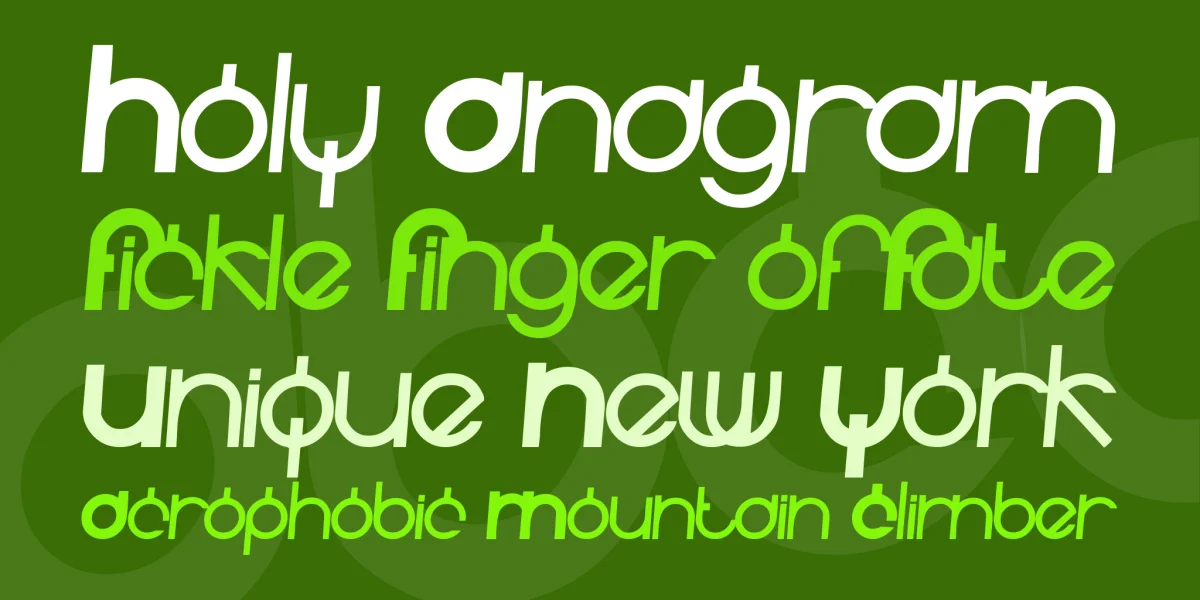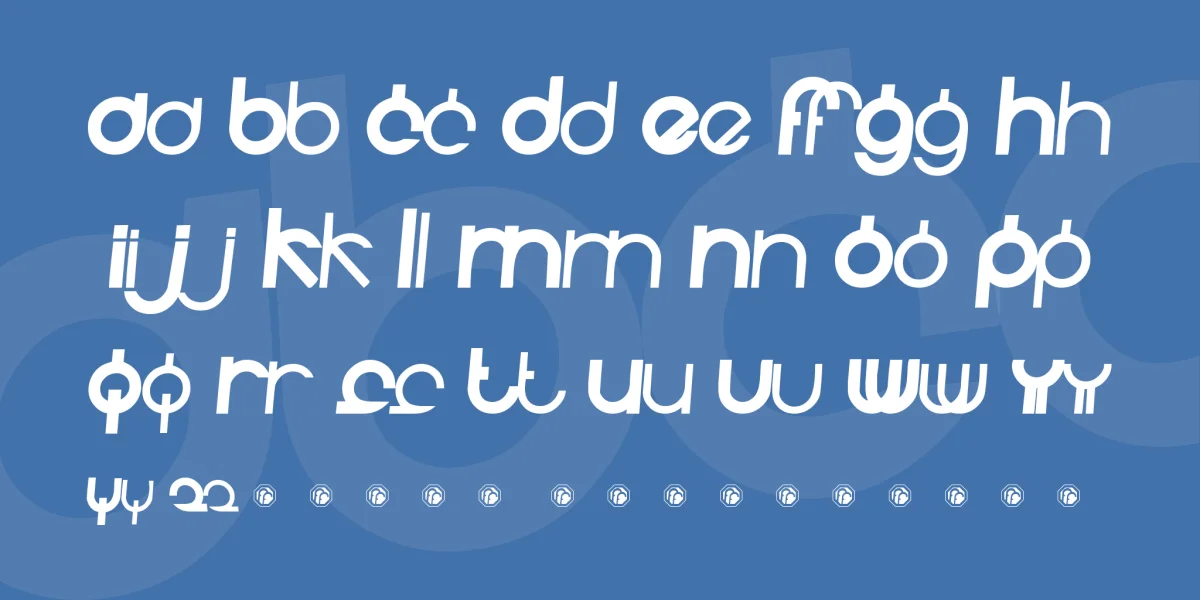
Oh for the love of smooth fonts. I decided to make a font that you can use to type with. You certainly cannot do that with a futuristic font like SpaceAce or a 1980's font like PacFont. I worked a long time on the kerning and I have finally perfected it. Well, I don't know about perfect, but it is good enuff to download. Give it a once go.